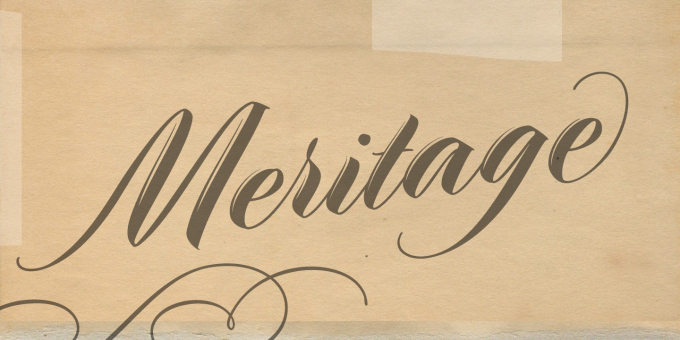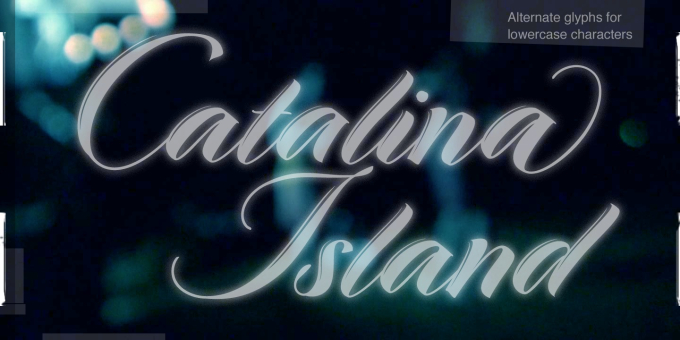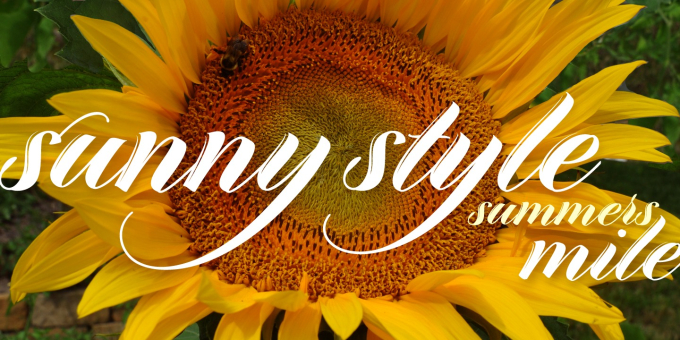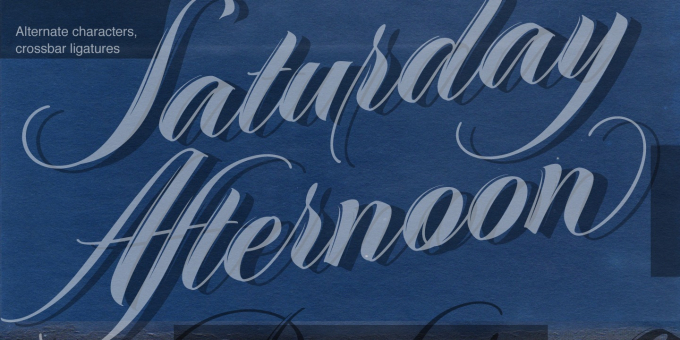
Meritage Pro
Lighthearted and friendly, Meritage delivers your message with informal style. OpenType users benefit from alternate lowercase characters, crossbar ligatures for common letter pairings, case sensitive quotes and smart apostrophes. Other goodies include optional old style numerals and a few clip-on swash elements, accessible by keyboard or supporting application’s OpenType glyph menu. Meritage Pro extends the character set to support Eastern European and Baltic languages.
Designer: Vu Nguyen Nguyen
Publisher: Vu Nguyen Nguyen